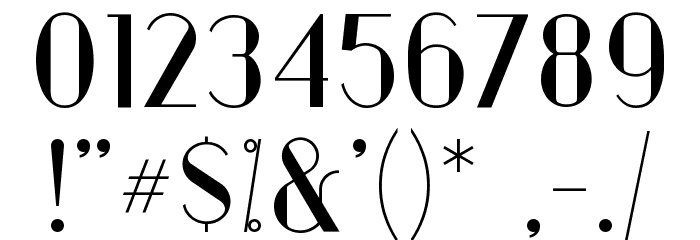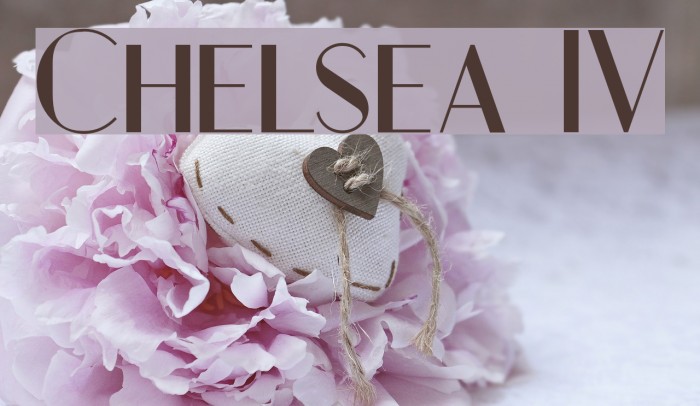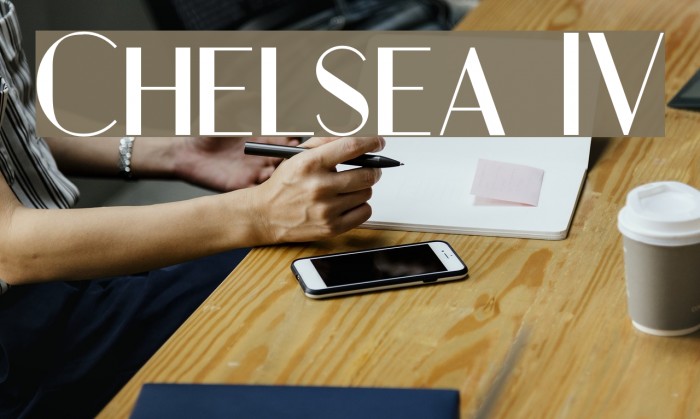
Chelsea IV Font
This font features a modern and elegant design, characterized by its high contrast between thick and thin strokes. The uppercase letters are tall and slender, with sharp, clean lines that convey a sense of sophistication. The lowercase letters maintain a similar style, offering a cohesive look across different text sizes. The numerals are distinct and easy to read, with a unique flair that adds character. Special characters are designed with the same attention to detail, ensuring consistency throughout. This font is ideal for projects that require a touch of elegance and modernity.
A modern, high-contrast font with elegant, slender characters.
- Proposed Projects: Ideal for luxury branding, editorial design, fashion magazines, and high-end product packaging.
- Category: Modern
- Contrast: High
- Use Case: Headlines, Logos, Editorial design